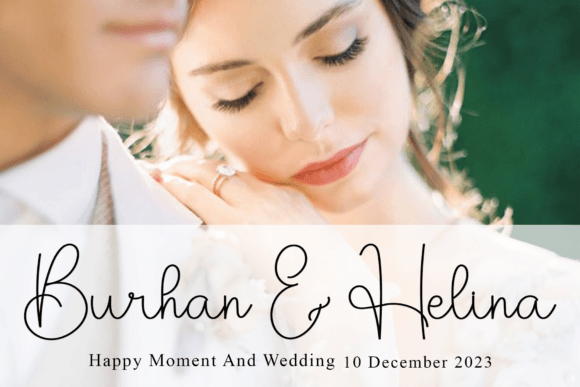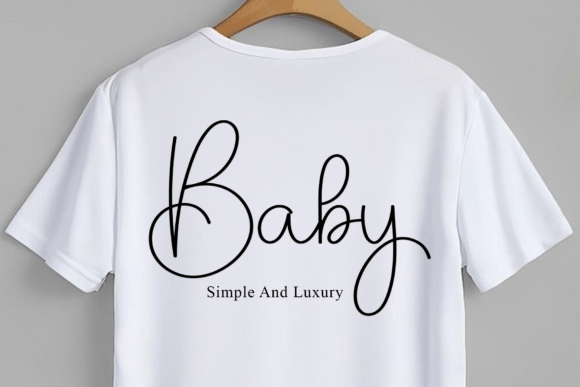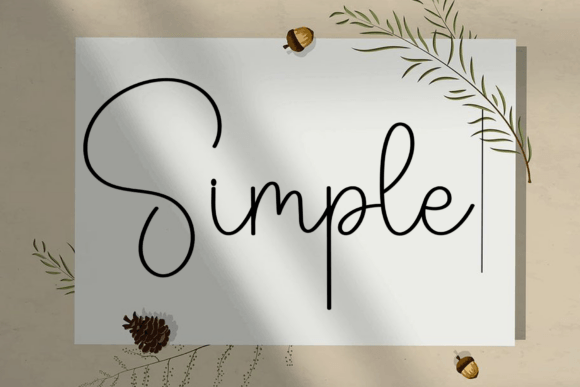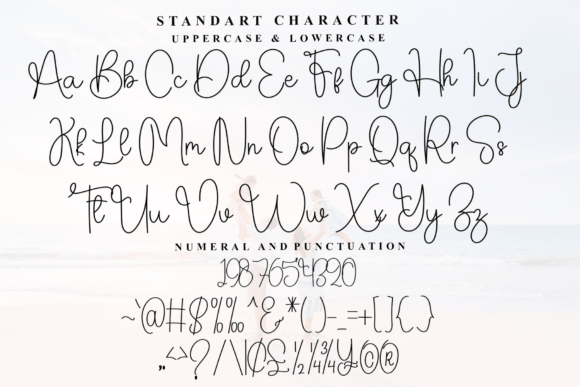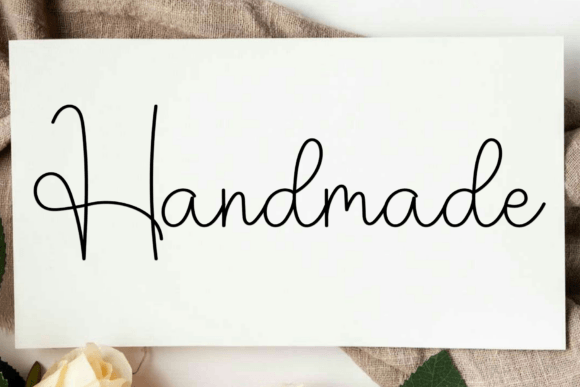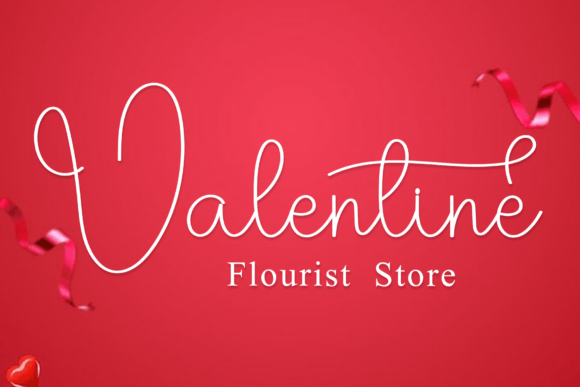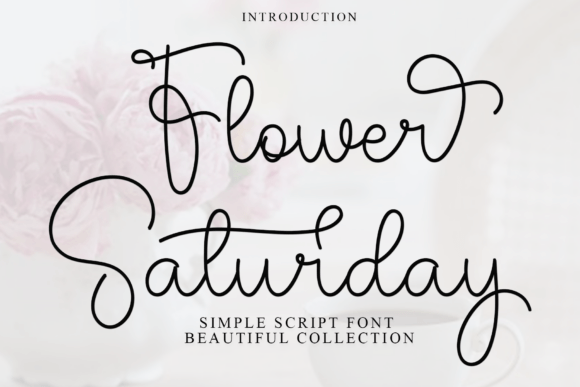
Introducing Flower Saturday Font: Elevate Your Designs with a Touch of Elegance
In the world of typography, a font can make or break a design. It’s the perfect blend of style, elegance, and creativity that can transform a simple project into a masterpiece. If you’re a designer, crafter, or creative enthusiast looking for a unique and eye-catching font, look no further than Flower Saturday Font. This beautiful font is designed with a soft, distinctive touch that will add a special character to your designs, making them stand out from the crowd.
The Beauty of Flower Saturday Font
Flower Saturday Font is a stunning example of typographic artistry. Its soft, flowing strokes are meticulously crafted to give it a unique and special character. The font’s distinctive style makes it perfect for a wide range of design projects, from crafts and DIY creations to professional graphic designs. Whether you’re working on a logo, poster, or social media graphics, Flower Saturday Font is sure to add a touch of elegance and sophistication.
Key Features of Flower Saturday Font
• Unique and Eye-Catching Design: Flower Saturday Font boasts a distinctive style that sets it apart from other fonts.
• Versatile and Meaningful: The font’s special character makes it perfect for a wide range of design projects, from creative crafts to professional designs.
• Various Characters: The font comes with a range of characters, making it ideal for designs that require a bit of flair.
Flower Saturday Font is a dream come true for designers and crafters. Its unique style and versatility make it perfect for a wide range of projects, including:
• Graphic Design: Use Flower Saturday Font to create stunning logos, posters, and social media graphics.
• Crafts and DIY: Add a touch of elegance to your crafts, scrapbooking, and other DIY projects.
• Stationery and Invitations: Create beautiful stationery, invitations, and greeting cards with Flower Saturday Font.
Why Choose Flower Saturday Font?
With so many fonts available, why choose Flower Saturday Font? Here are just a few reasons:
• Enhance Your Designs: Flower Saturday Font will add a touch of elegance and sophistication to your designs, making them appealing to a wide range of audiences.
• Stand Out from the Crowd: The font’s unique style will set your designs apart from others, making them more memorable and impactful.